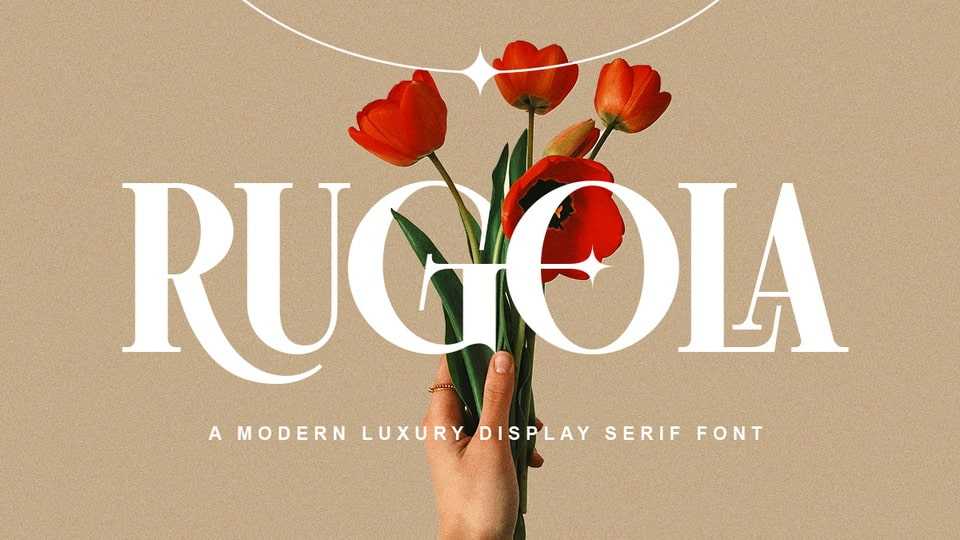
Download Rugola font, modern luxury serif typeface. This font is perfect choice for adding a modern and elegance, sophisticated look to your artwork.